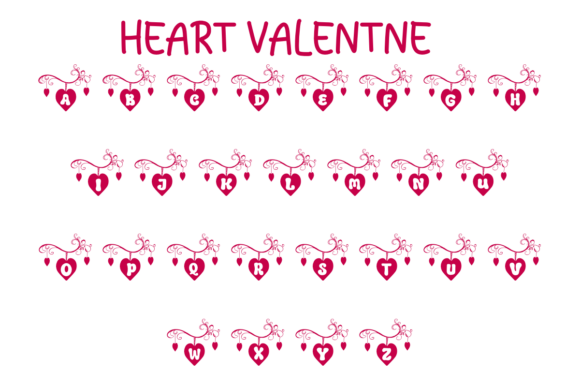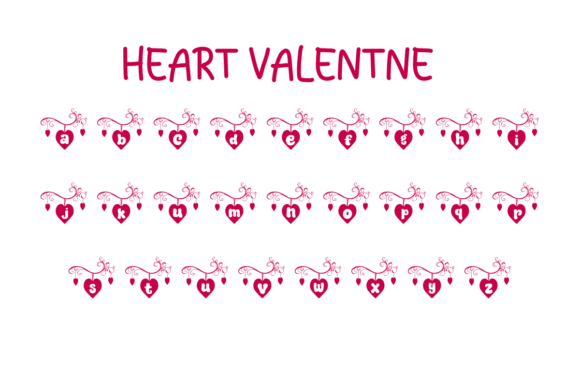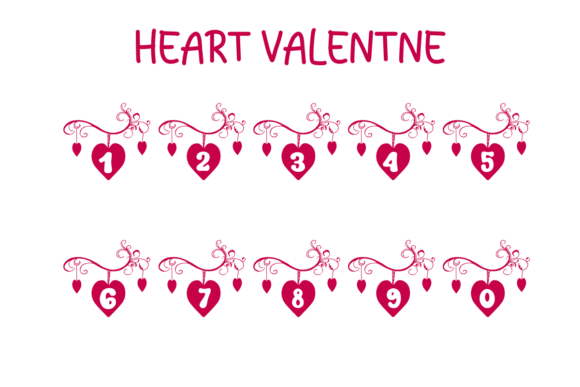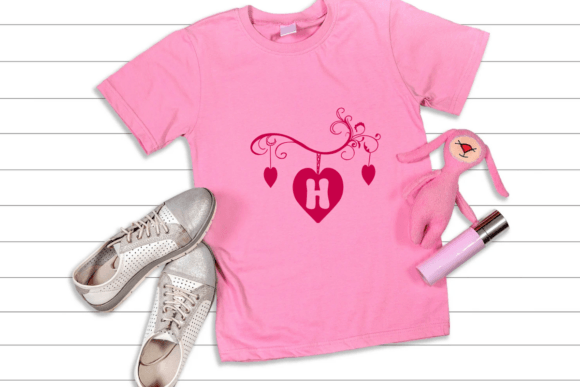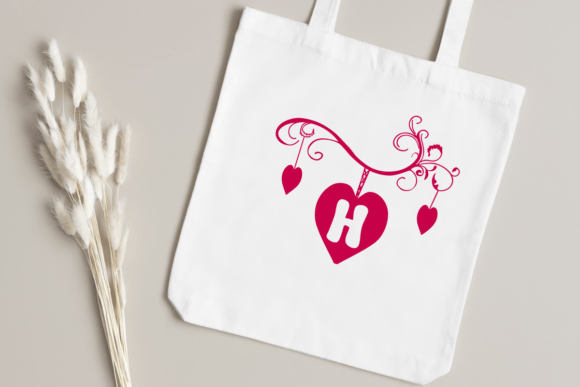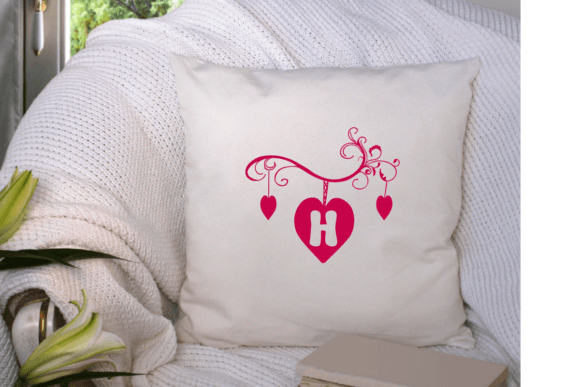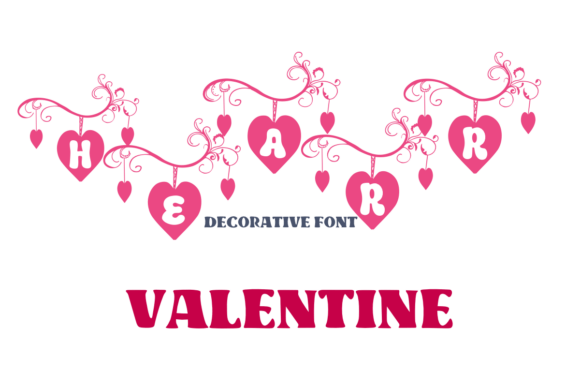
Introducing Heart Valentine Font: The Perfect Addition to Your Design Arsenal
Are you a designer, crafter, or DIY enthusiast looking for a unique and playful font to add a touch of personality to your projects? Look no further than Heart Valentine Font! This decorative font is perfect for a variety of creative endeavors, from taking notes and writing diary entries to crafting greeting cards and designing eye-catching banners.
What is Heart Valentine Font?
Heart Valentine Font is a beautifully designed decorative font that features heart-shaped letters and characters. Its playful and whimsical design makes it perfect for adding a touch of romance and fun to any project. Whether you’re creating a handmade card, a decorative banner, or a social media post, Heart Valentine Font is sure to make your design stand out.
Uses for Heart Valentine Font
One of the best things about Heart Valentine Font is its versatility. While it’s perfect for traditional crafts like making greeting cards and writing in a diary, it can also be used for a wide range of other design projects, including:
- Banners: Create eye-catching banners for parties, events, or promotions using Heart Valentine Font.
- Content: Add a touch of personality to your blog posts, articles, or website content with this decorative font.
- Mugs: Design custom mugs for gifts or personal use with Heart Valentine Font.
- Cards: Create one-of-a-kind greeting cards for special occasions like Valentine’s Day, birthdays, or anniversaries.
- Shirts: Design custom t-shirts, hoodies, or tote bags with Heart Valentine Font.
- Stationery: Add a touch of elegance to your stationery, including notebooks, journals, or letterheads.
- Social Media Posts: Make your social media posts stand out with Heart Valentine Font.
Why Choose Heart Valentine Font?
So why choose Heart Valentine Font over other decorative fonts? Here are just a few reasons:
- Unique Design: Heart Valentine Font features a unique and playful design that’s sure to grab attention.
- Easy to Use: This font is easy to read and use, making it perfect for a wide range of design projects.
- Versatile: Heart Valentine Font can be used for both personal and commercial projects, making it a great addition to your design arsenal.
- High-Quality: This font is designed with high-quality graphics, ensuring that it looks great even at large sizes.
Tips for Using Heart Valentine Font
Here are a few tips for getting the most out of Heart Valentine Font:
- Experiment with Colors: Try pairing Heart Valentine Font with different colors to create unique and eye-catching designs.
- Mix and Match: Combine Heart Valentine Font with other fonts or graphics to create interesting and dynamic designs.
- Keep it Simple: Don’t be afraid to keep your design simple and clean, allowing Heart Valentine Font to be the focal point.